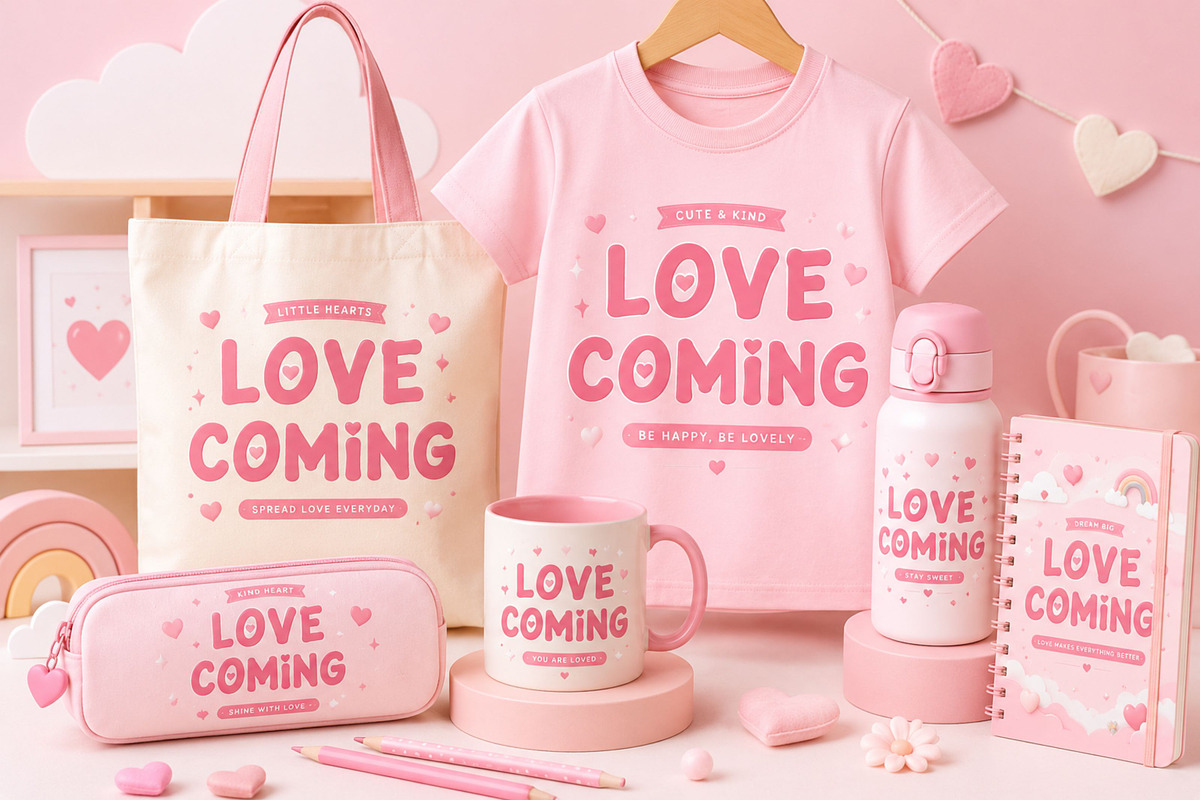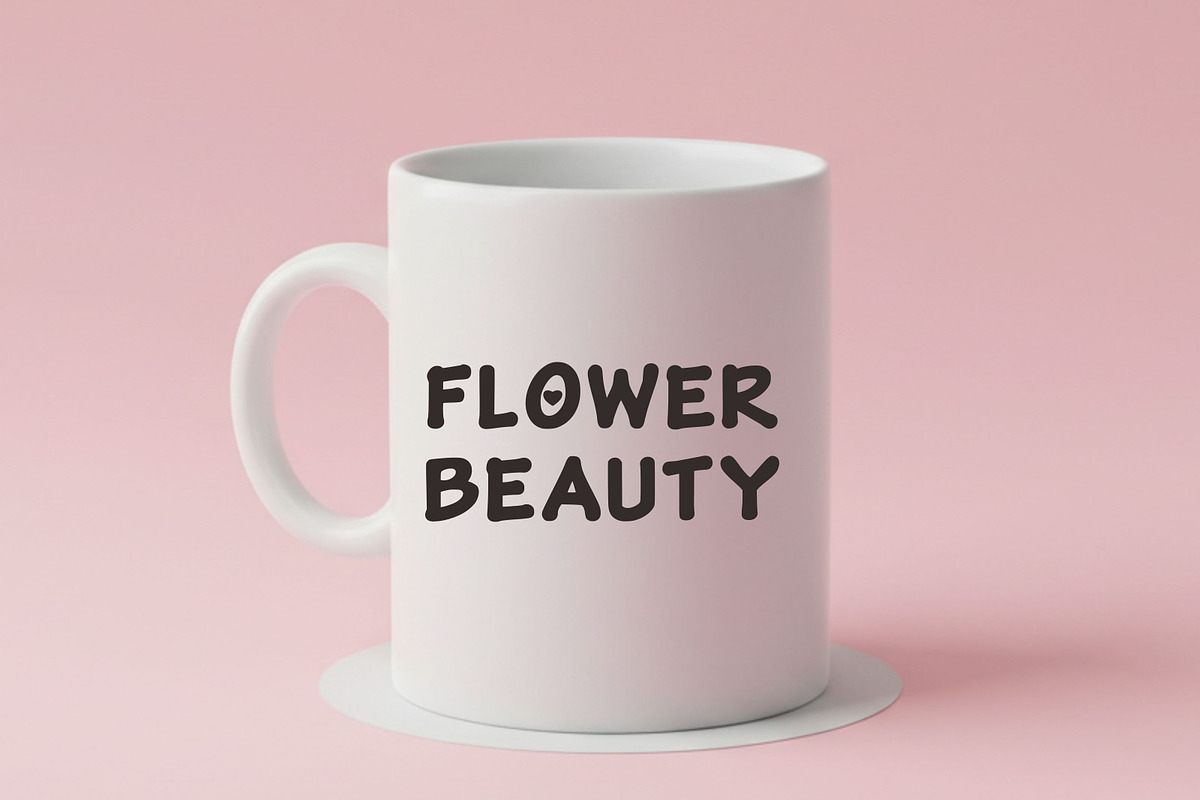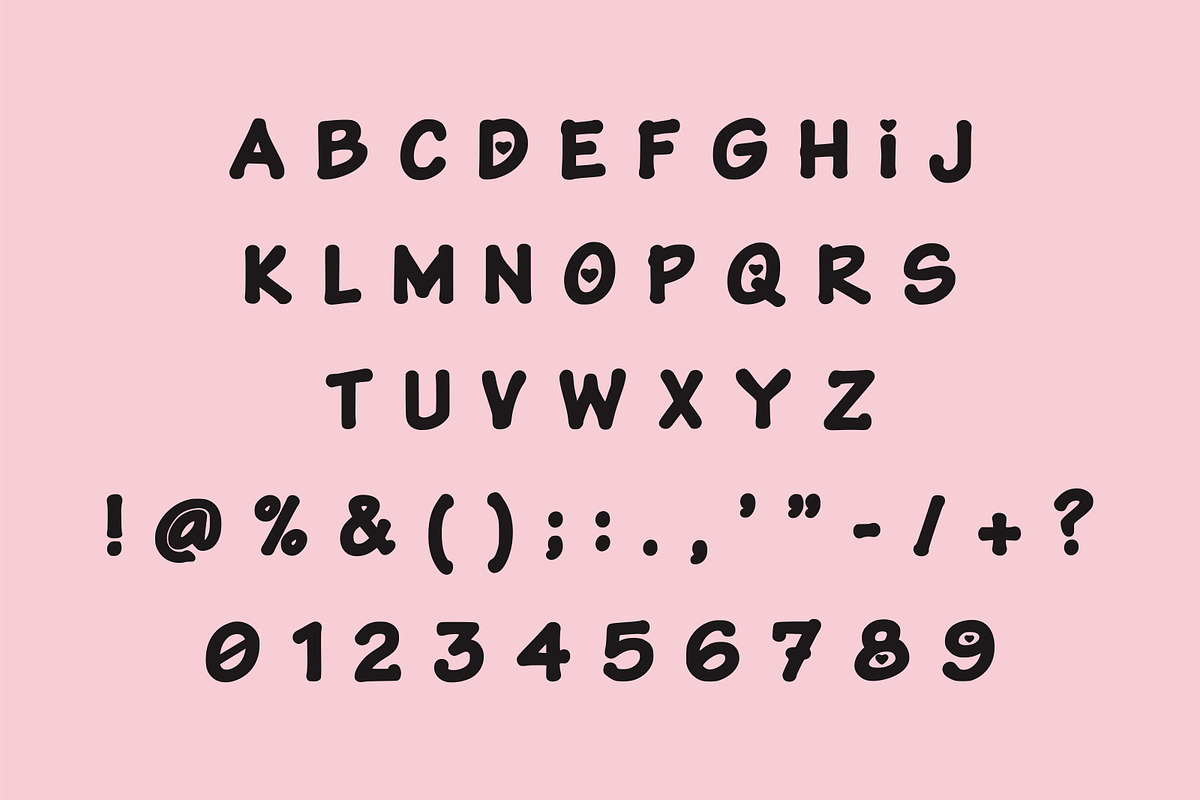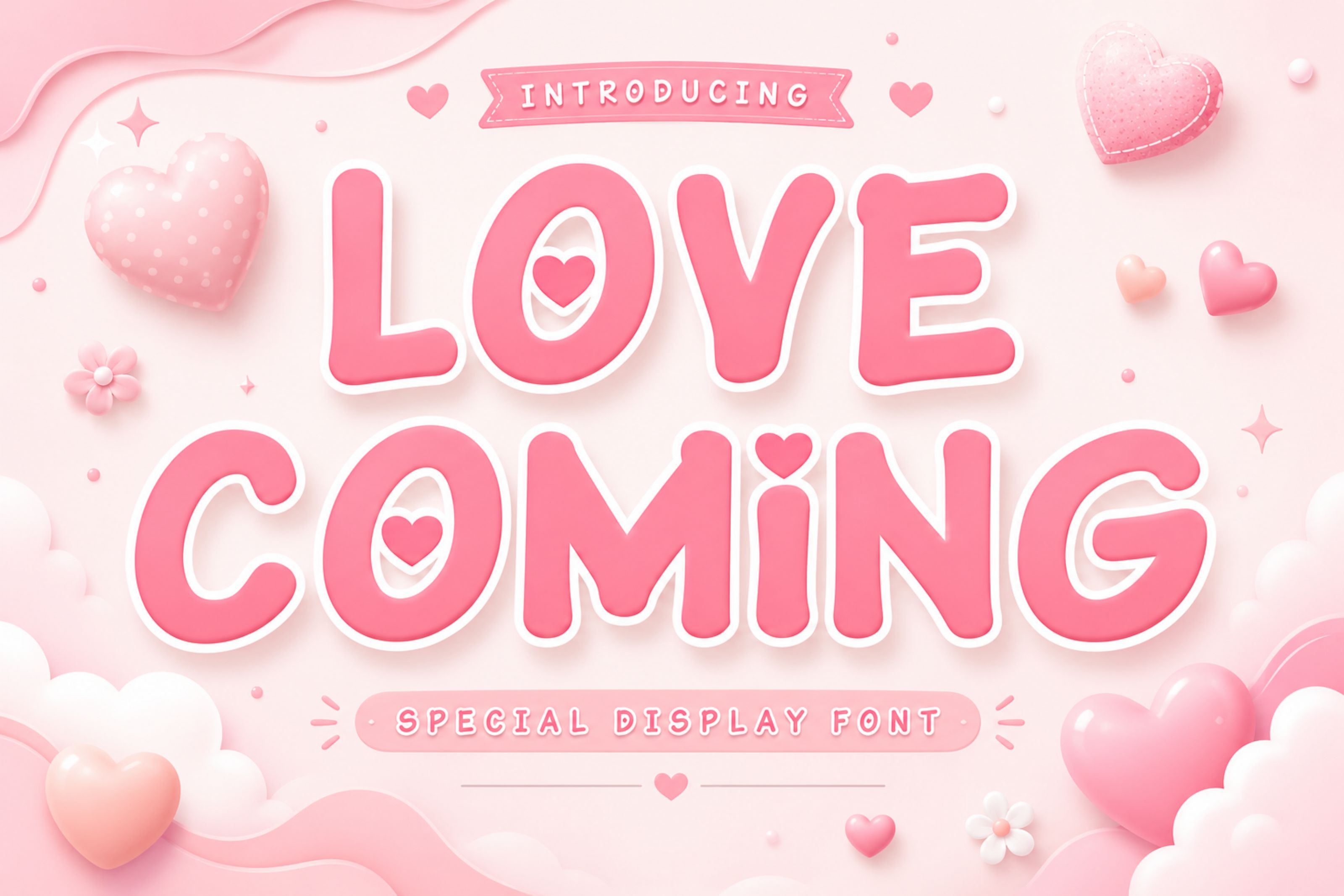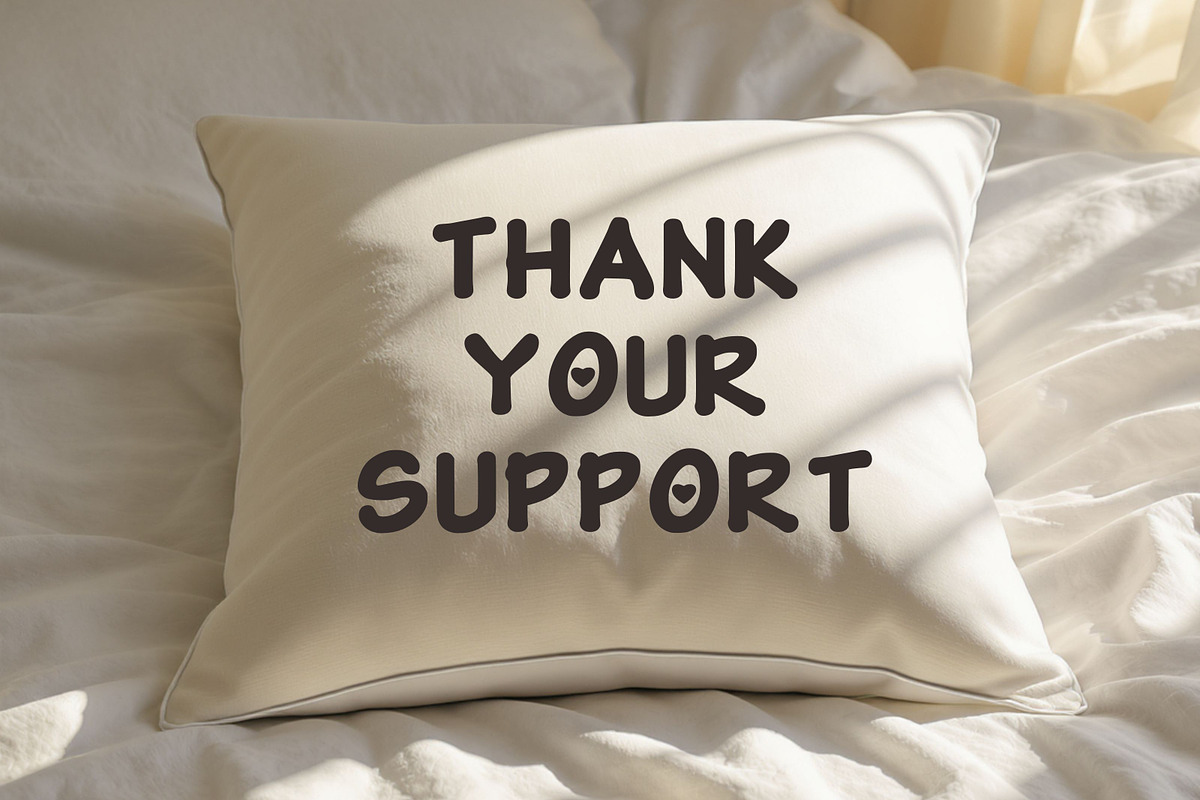
Love Coming - Cute Valentine Font
Love Coming is a charming display font featuring bold, rounded letterforms with a soft and friendly personality. Inspired by love, romance, and kawaii aesthetics, this font is designed to make every project feel warm, cheerful, and eye-catching.
Its smooth curves and adorable style make it ideal for Valentine's Day creations, wedding invitations, greeting cards, children's products, stickers, packaging, apparel, mugs, tote bags, Cricut crafts, and social media graphics.
Whether you're creating printable products or commercial merchandise, Love Coming delivers a fun and lovable look that stands out beautifully.
Valentine's Day Designs
Wedding Invitations
Greeting Cards
Children's Books
Stickers & Labels
T-Shirt Designs
Tote Bags
Mug Designs
Packaging
Branding & Logos
Social Media Posts
Cricut & Silhouette Projects
Printable Crafts
Scrapbooking
DIY Projects
Cute Bubble Style
Bold & Rounded Letterforms
Easy to Read
Fun and Friendly Appearance
Perfect for Print & Digital Designs